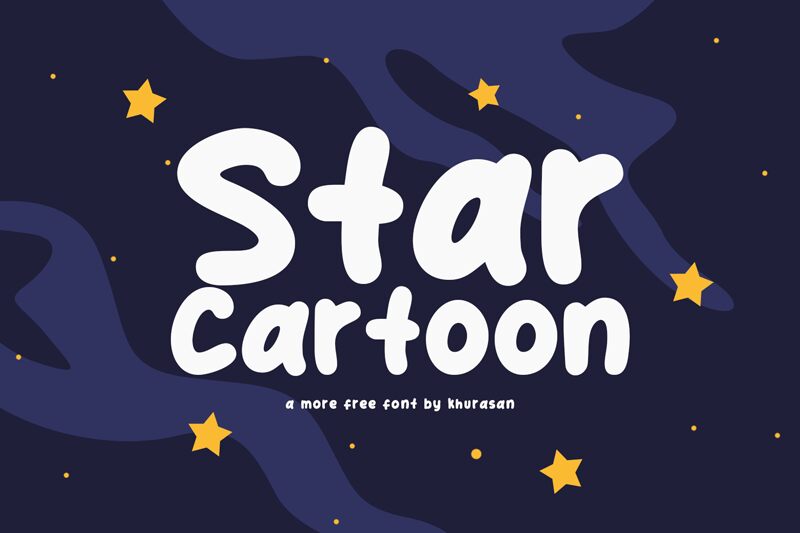
Star Cartoon
Star Cartoon, a bold and semi-expanded display font designed by Khurasan, brings an animated touch to your projects. With its playful and exaggerated letterforms, this cartoon-inspired typeface adds a burst of personality to children's books, comic strips, and animated movies. Let Star Cartoon guide your creativity as you design eye-catching logos, posters, and packaging for entertainment brands or create vibrant illustrations that leap off the page. This font guarantees that your content will shine brightly in search results while captivating audiences young and old with its delightful charm.